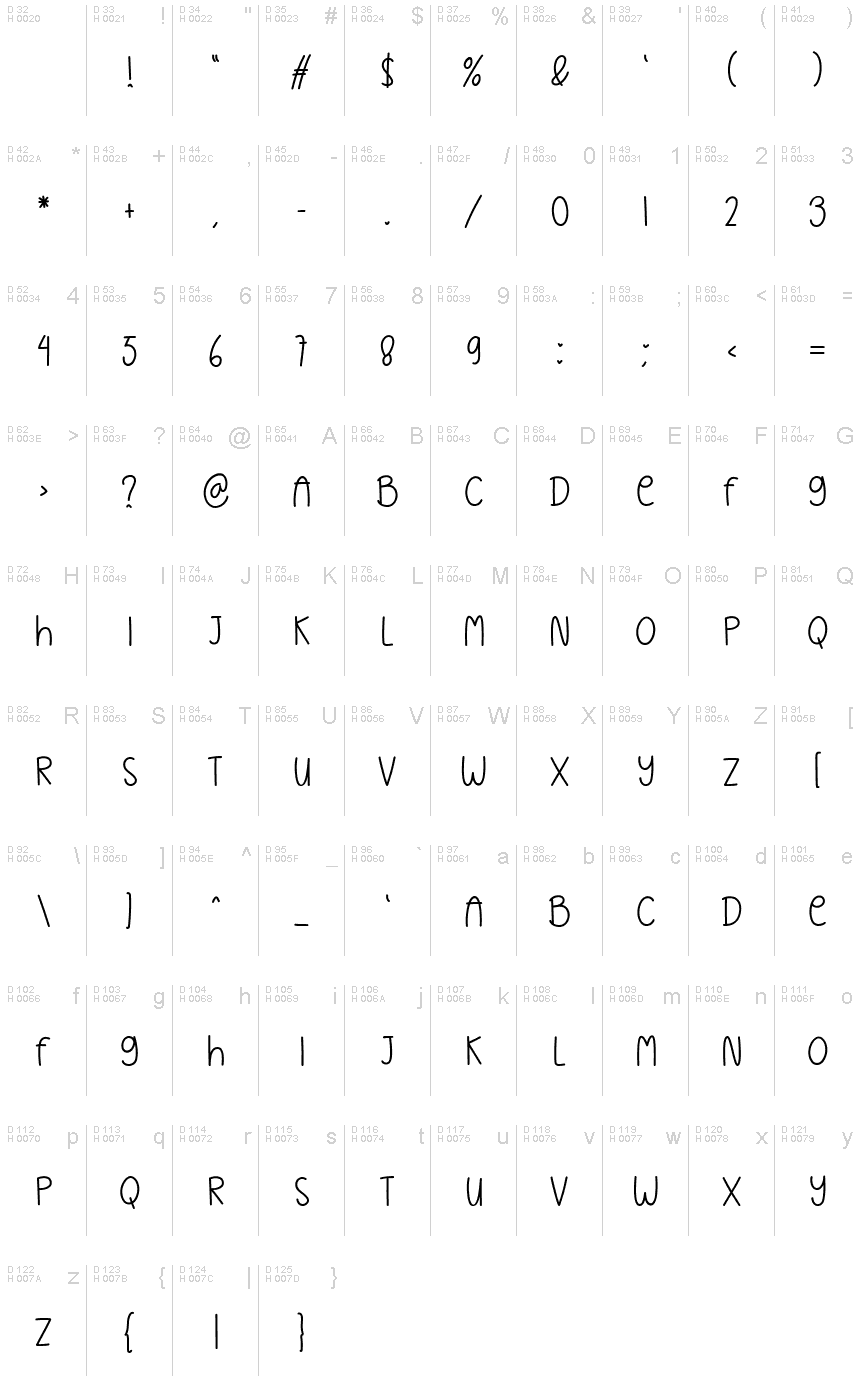
Lemonade
Lemonade font is a nice handwritten font designed by Lontong Lodeh.
the latest style letters are perfect for wall displays, wedding invitations, social media post logos, advertisements, product packaging, product designs, labels, photography, watermarks, invitations, stationery, and any project that requires taste handwriting.